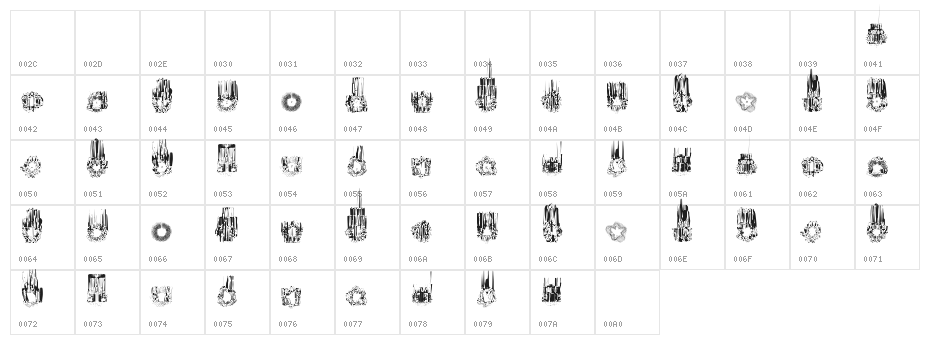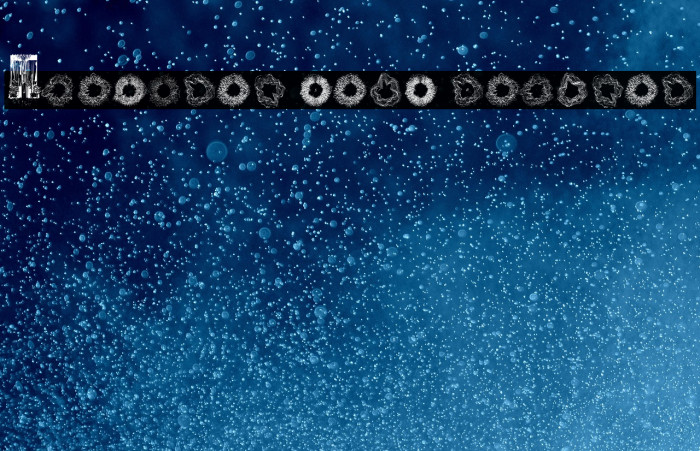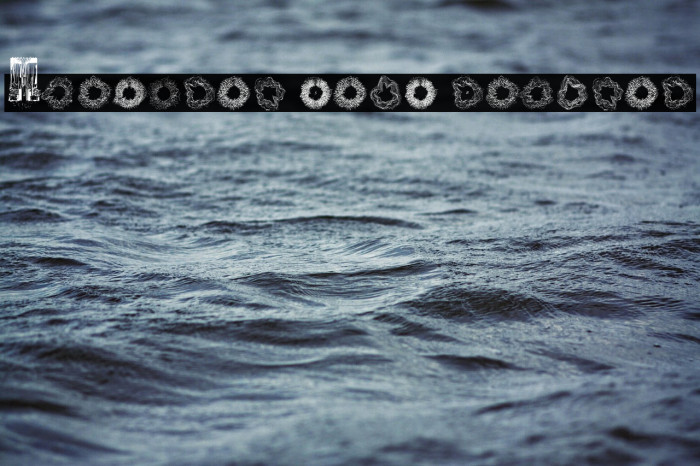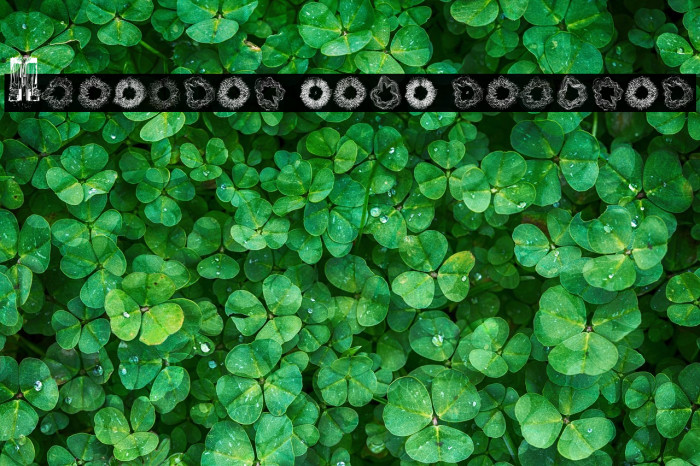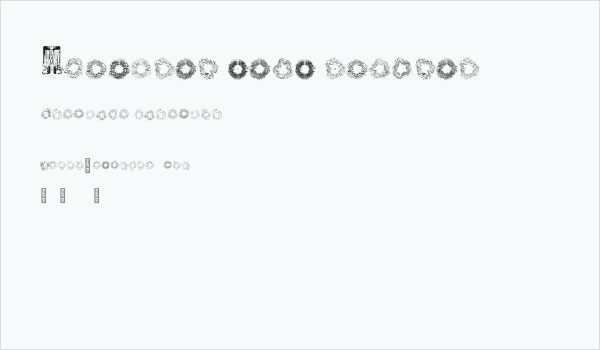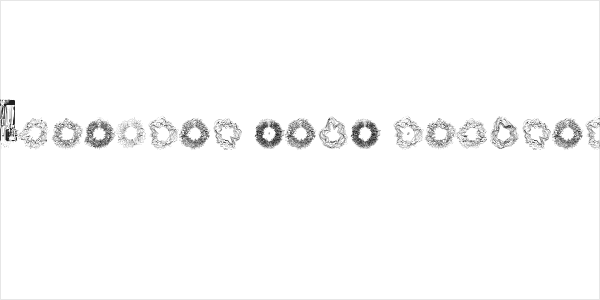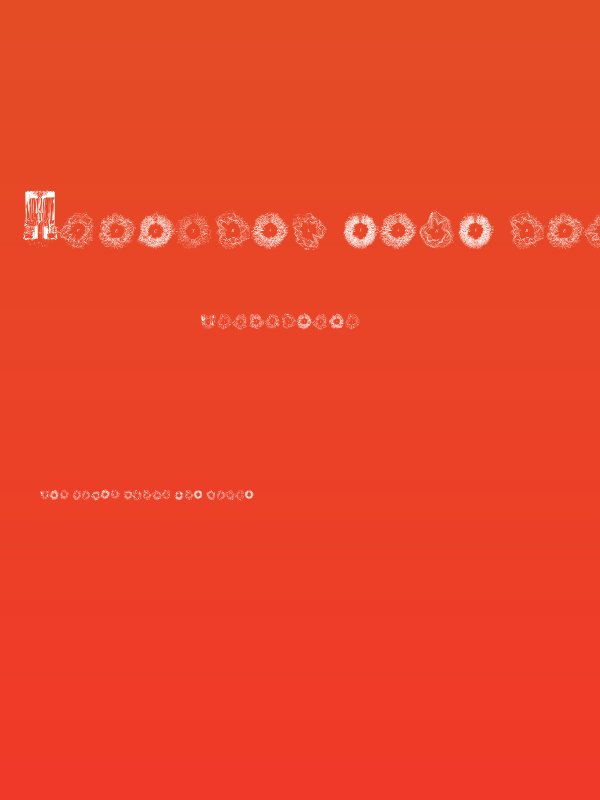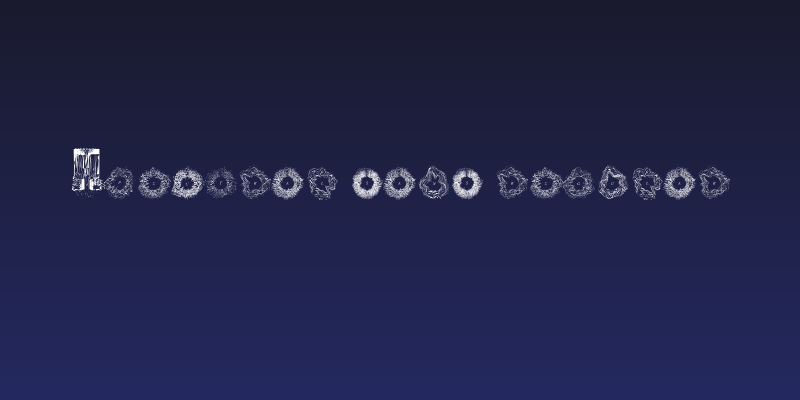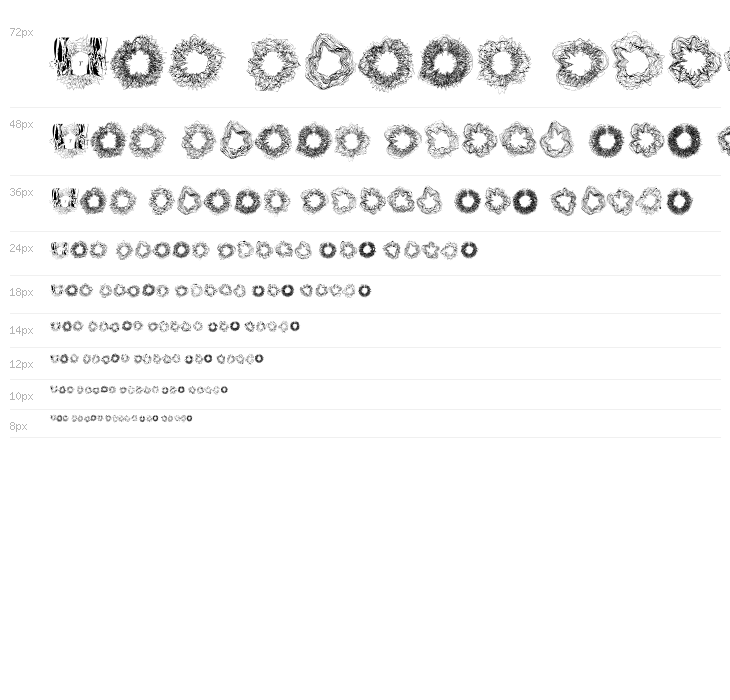
Spectral Sans Regular Font
Spectral Sans Regular Description
This design features a highly decorative and abstract style, with each character resembling a complex, organic shape. The letters are formed by intricate, swirling lines that create a sense of movement and texture. This artistic approach gives the font a unique, almost chaotic appearance, making it stand out as a piece of art rather than a traditional typeface. The characters are not uniform, with varying shapes and sizes, adding to the overall dynamic and expressive feel. This style is not suitable for body text but can be used effectively in creative and artistic projects where a bold statement is desired.
| Use Case | Logos, Artistic projects, Posters |
| Proposed Projects | Ideal for artistic projects, album covers, posters, or any design requiring a bold, artistic statement. |